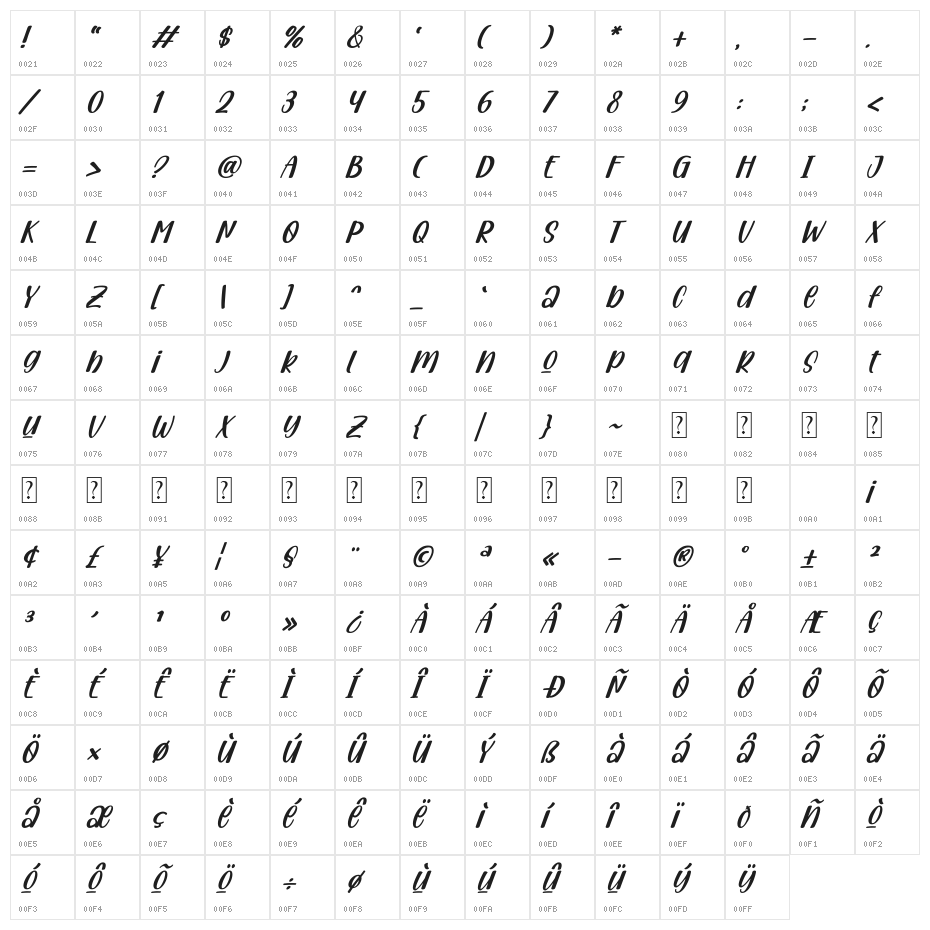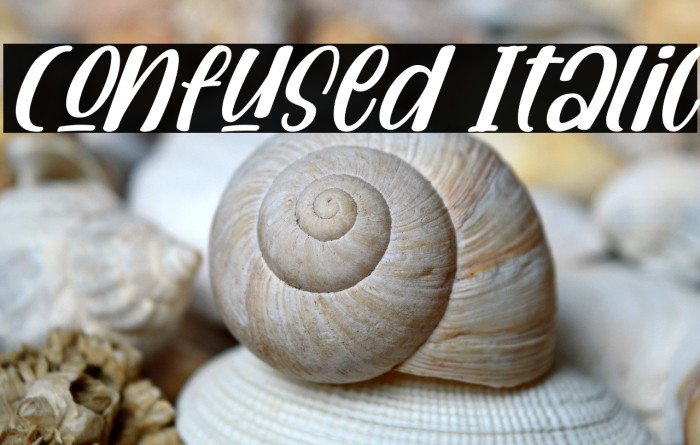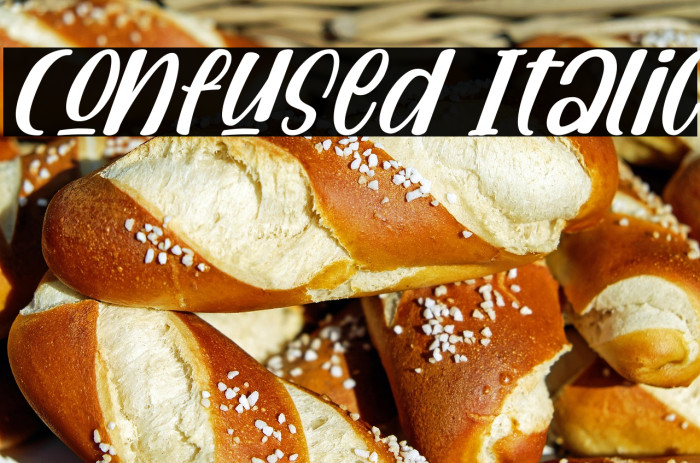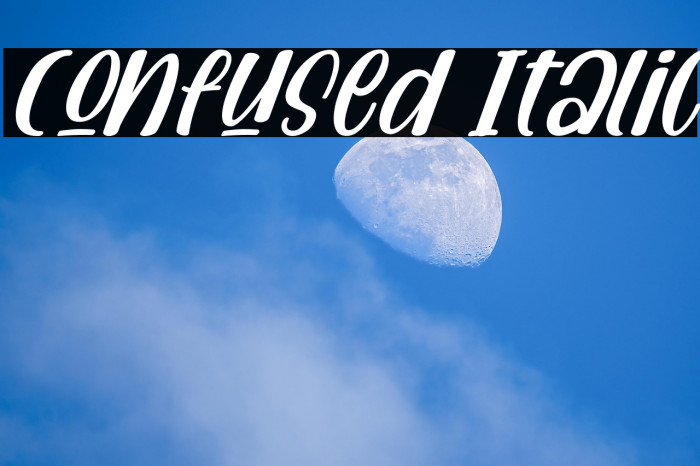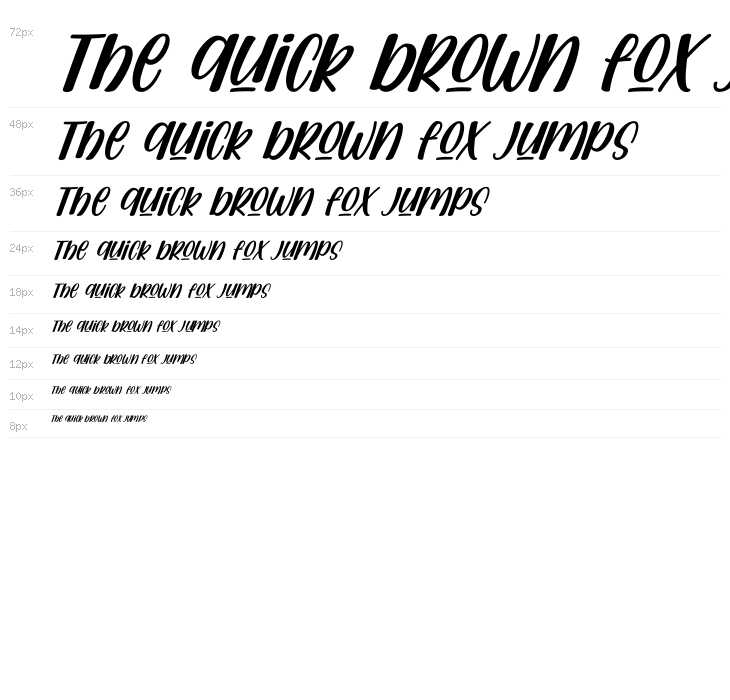
Confused Italic Font
Confused Italic Description
This font features a bold and dynamic script style with a noticeable italic slant, giving it a sense of motion and energy. The characters are fluid and connected, with a consistent stroke width that adds to its bold appearance. The uppercase letters are tall and slightly condensed, while the lowercase letters maintain a harmonious flow. The numerals and special characters are designed to match the overall style, ensuring a cohesive look. This font's lively and expressive nature makes it suitable for creative and eye-catching designs.